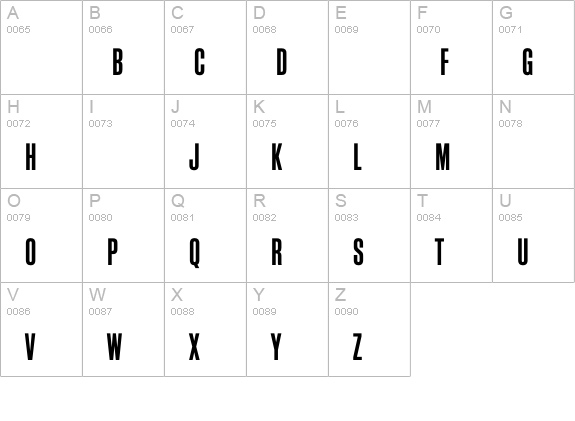
BlockGothicDemiExtraCond Font Details
BlockGothicDemiExtraCond is a bold and modern typeface that exudes strength and confidence. Its condensed form allows for efficient use of space without compromising on readability. The sharp edges and clean lines give this font a sleek and contemporary look, making it perfect for headlines, titles, and other display purposes. This versatile font is ideal for projects that require a strong and impactful visual presence. Whether used in print or digital media, BlockGothicDemiExtraCond commands attention and leaves a lasting impression. Its bold demeanor makes it particularly well-suited for branding, advertising, and other design applications where a bold statement is needed. The best part? BlockGothicDemiExtraCond is available for free download at FontsMarket.com. This means you can easily access this powerful font and use it in your projects without any cost. Don't miss out on the opportunity to enhance your designs with the bold and striking BlockGothicDemiExtraCond font. Download it now and make a bold statement with your typography!